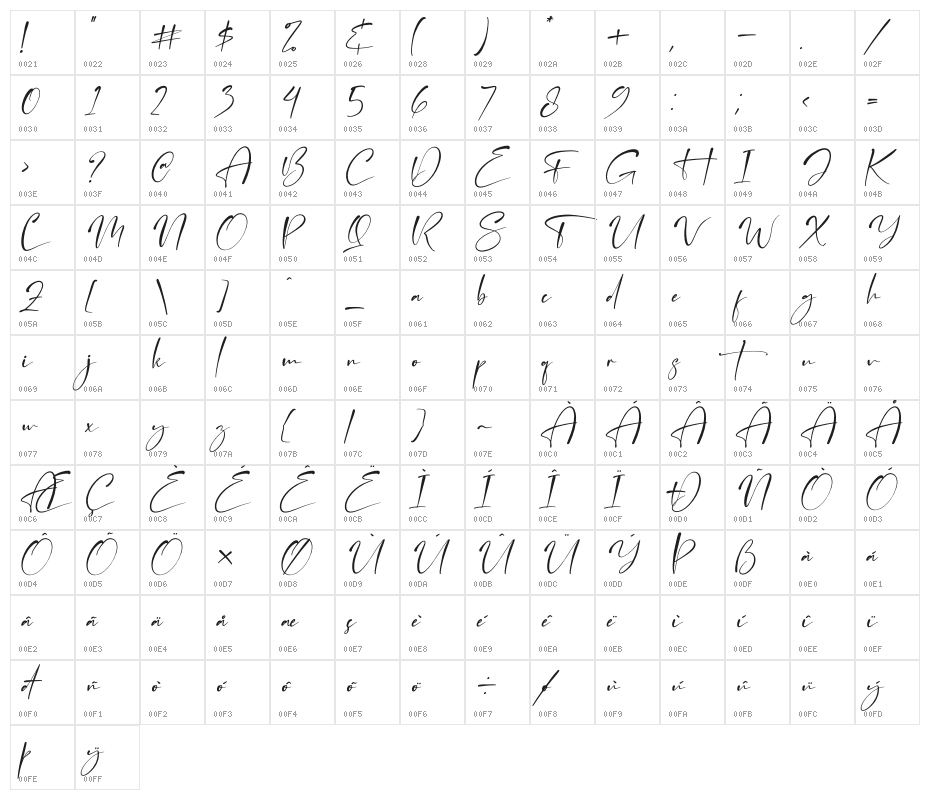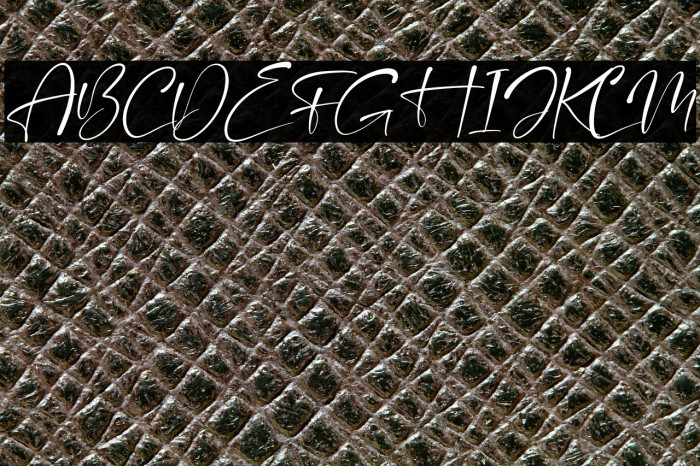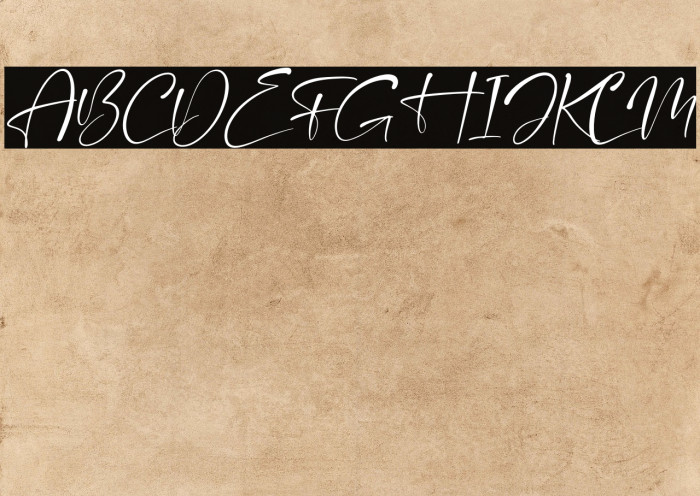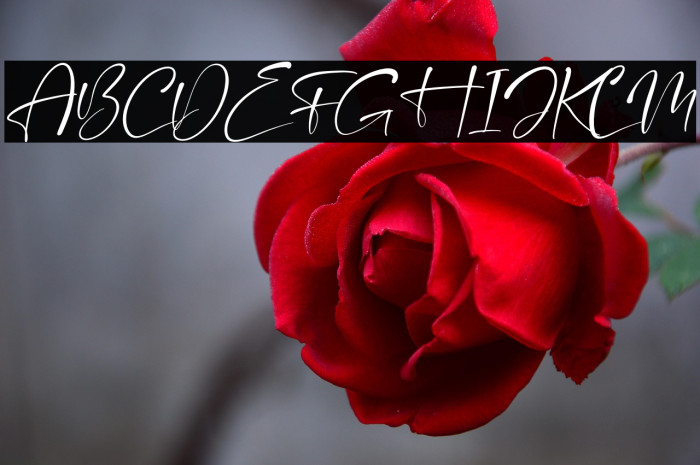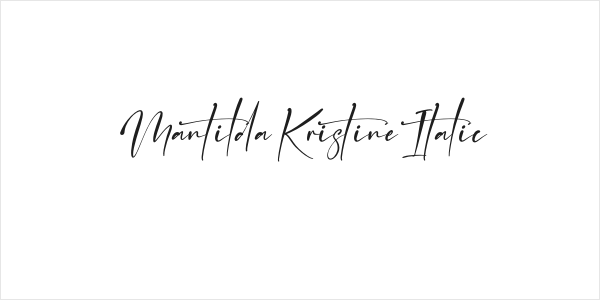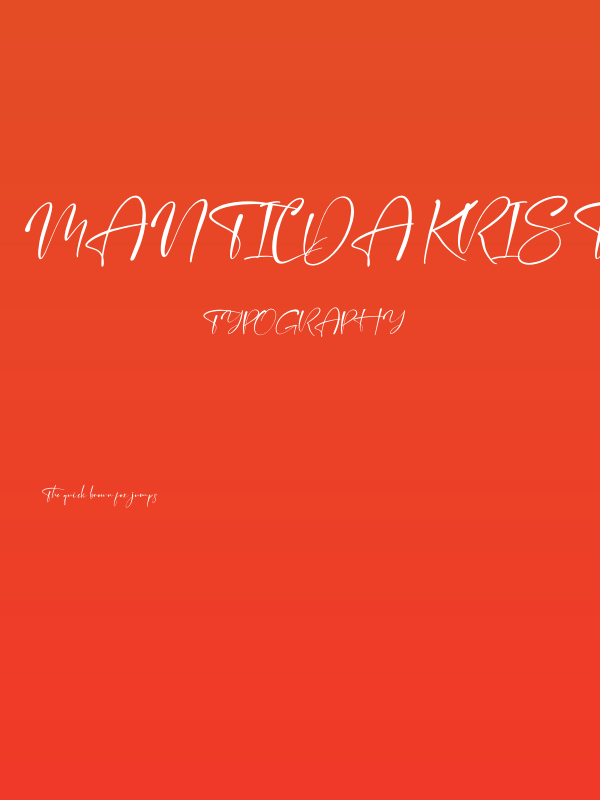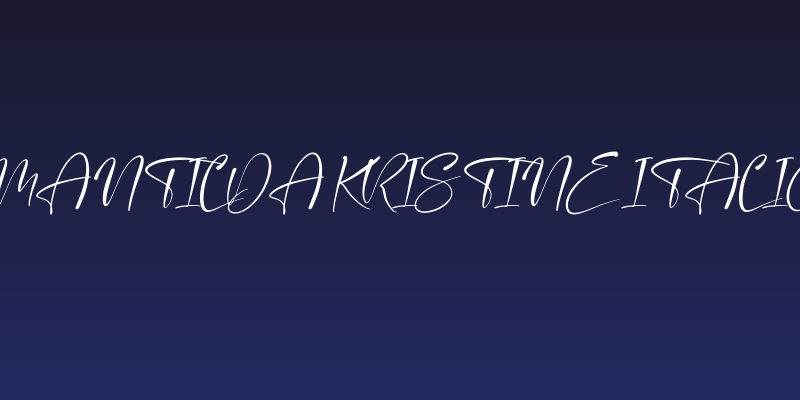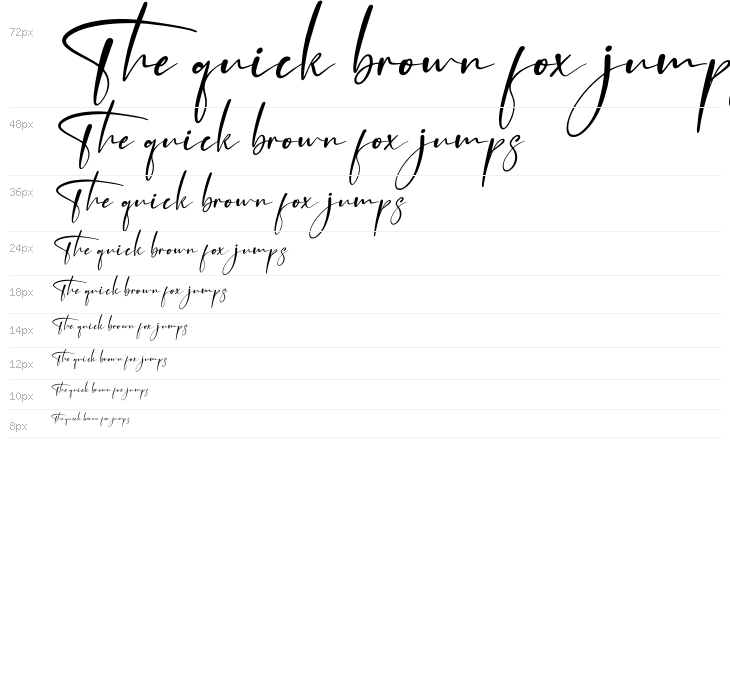
Mantilda Kristine Italic Font
Mantilda Kristine Italic Description
This font exudes elegance and sophistication with its flowing, cursive style. The letters are intricately designed with a sense of fluidity and grace, making it ideal for projects that require a touch of class. The uppercase letters are bold and sweeping, while the lowercase letters maintain a delicate balance with their slender, elongated forms. Numbers and special characters are crafted with the same attention to detail, ensuring consistency throughout. The overall appearance is both artistic and readable, suitable for a variety of creative applications.
| Overall Style | Elegant, Artistic |
| Proposed Projects | Ideal for wedding invitations, luxury branding, elegant stationery, and artistic projects. |